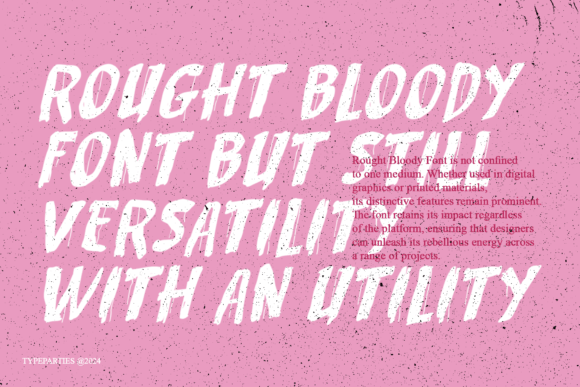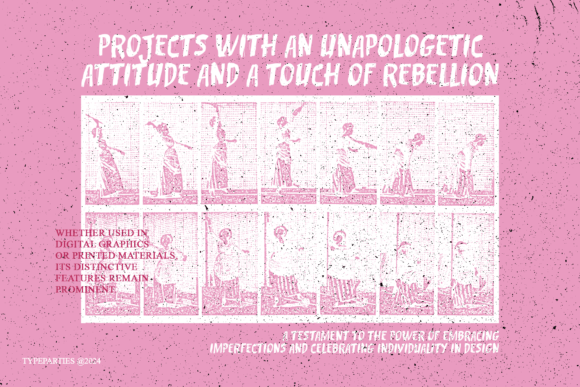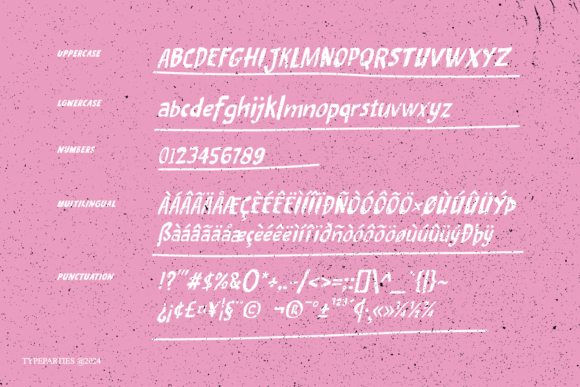
The Unbridled Energy of Bloodbeth Font: A Designer’s Delight
I still remember the day I stumbled upon the Bloodbeth Font while working on a project that required a bold, edgy typeface. I had been scouring the internet for hours, trying to find the perfect font to capture the rebellious spirit of my client’s brand. As soon as I laid eyes on Bloodbeth, I knew I had found the one. Its raw, untamed energy was exactly what I needed to bring my design to life.
A Bold and Rebellious Typeface
Bloodbeth Font emerged from the creative minds of type designers who sought to break away from the conventional and inject a dose of rebellious spirit into the world of typography. This font is a departure from the smooth and polished aesthetics often associated with traditional typefaces, opting instead for a rough and distressed appearance that exudes attitude and character.
- ✨ Unique and bold design that adds a rebellious touch to any project
- ✅ Highly legible despite its distressed appearance
- 💥 Excellent for headlines, titles, and emphasis text
- 🎨 Versatile and can be used in a variety of design contexts, from posters to digital media
While Bloodbeth Font is an excellent choice for many design projects, it’s not without its quirks. For example, ⚠️ it may not be the best choice for body text or small font sizes, as its distressed appearance can be overwhelming. Additionally, 🤔 some users may find the font’s rough edges and irregularities challenging to work with.
The creators of Bloodbeth Font drew inspiration from the raw energy of graffiti and street art. They sought to capture the rebellious spirit of these art forms and translate it into a typographic experience. The result is a font that is both bold and beautiful, with a unique character that sets it apart from more traditional typefaces.
Q: What is the best use for Bloodbeth Font?
A: Bloodbeth Font is best used for headlines, titles, and emphasis text, where its bold and rebellious character can shine.
Q: Is Bloodbeth Font suitable for body text?
A: While Bloodbeth Font is highly legible, its distressed appearance may not be suitable for body text or small font sizes.